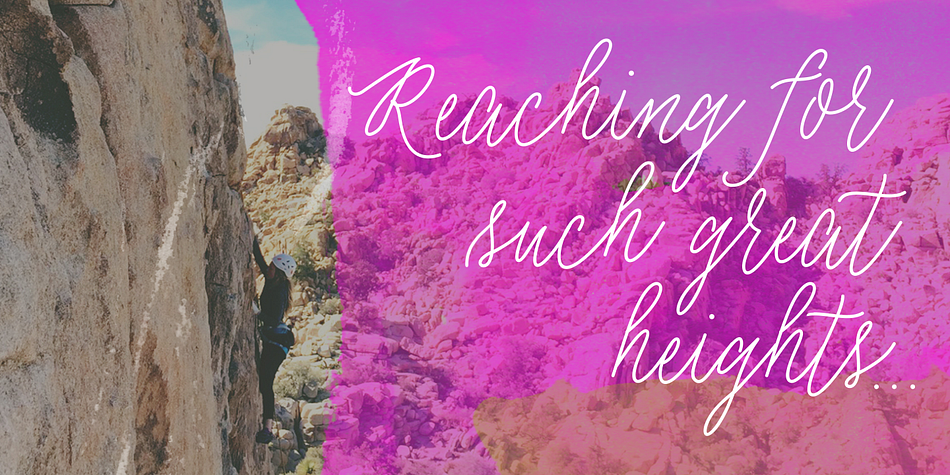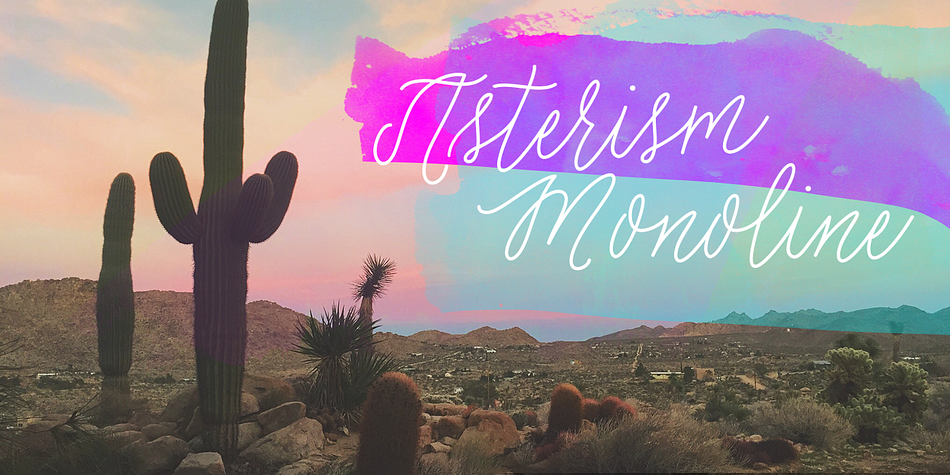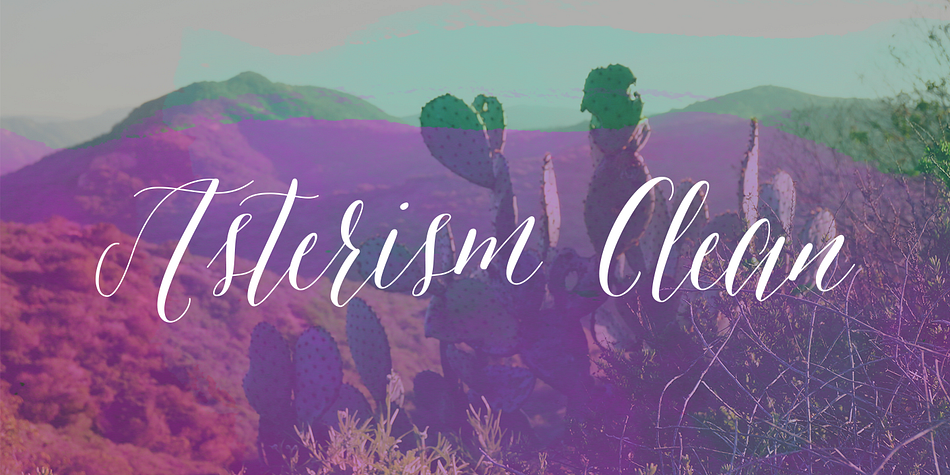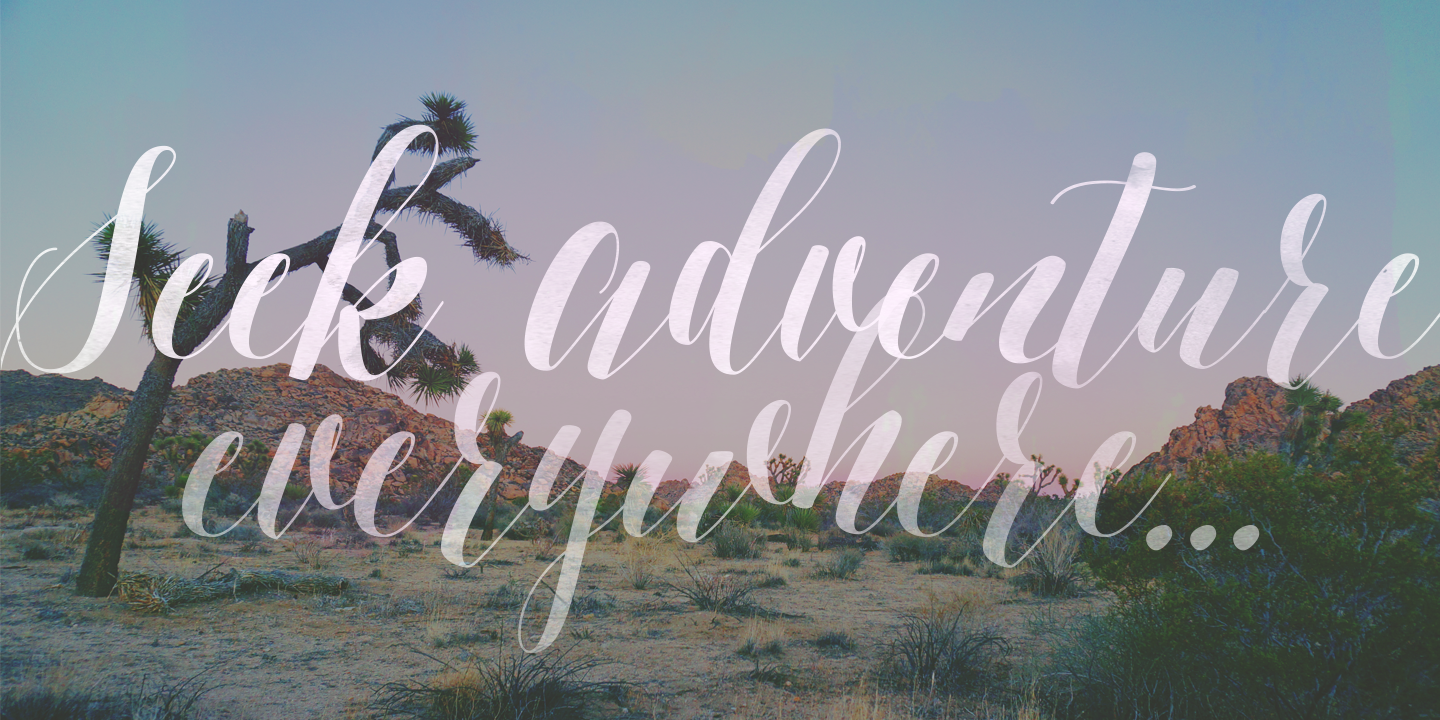
Asterism Clean is a script and modern calligraphy font family. This typeface has three styles and was published by Great Lakes Lettering.
Asterism Clean is the smooth lined version of Asterism. It is a calligraphy style font with a moving baseline and lots of shining personality.
Also contains a bold and a monoline version.
This hand written style font is based on one of Molly’s signature calligraphy styles and pairs beautifully with Frosted, Icing, Saint Agnes.